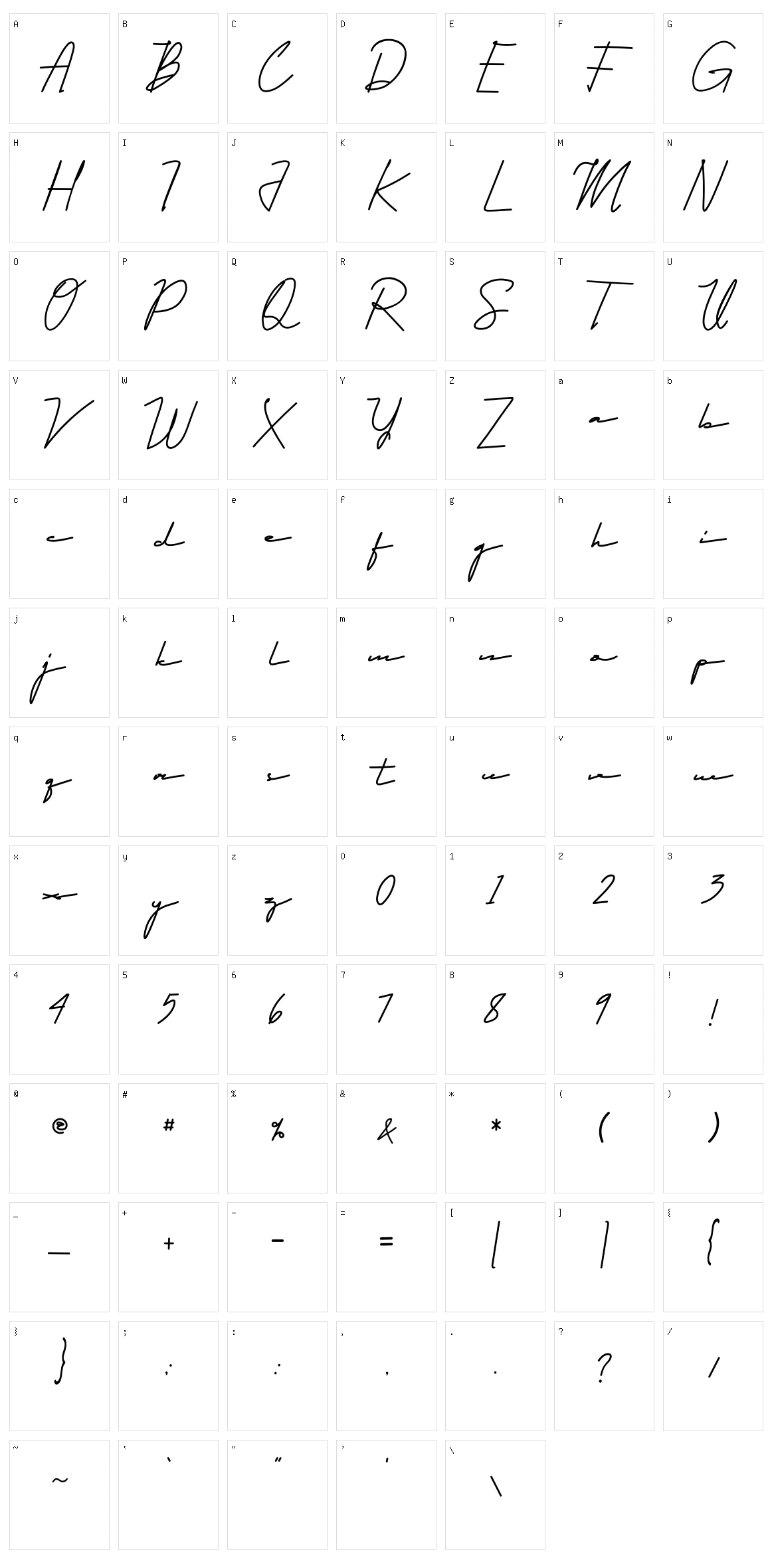
The free font Qhueeny Signature is carefully designed by Namara Creative, showcasing a thoughtful balance of creativity and usability and falls under the Script font style. When you download the ZIP file, it contains only 58.25 KB of font files, making it lightweight and quick to download. Please review the license details below to understand permitted usage and distribution rights. If license information is not available, we recommend using this font for personal projects only or contacting the author directly for commercial usage permissions.